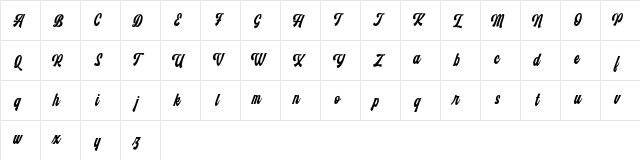
Monthelo Regular
| Foundry | Blankids Studio |
| Designer | Blankids Studio |
Design Context for Monthelo Typeface
Monthelo is a composed and adaptable typeface that performs quietly and consistently across a wide range of design contexts.